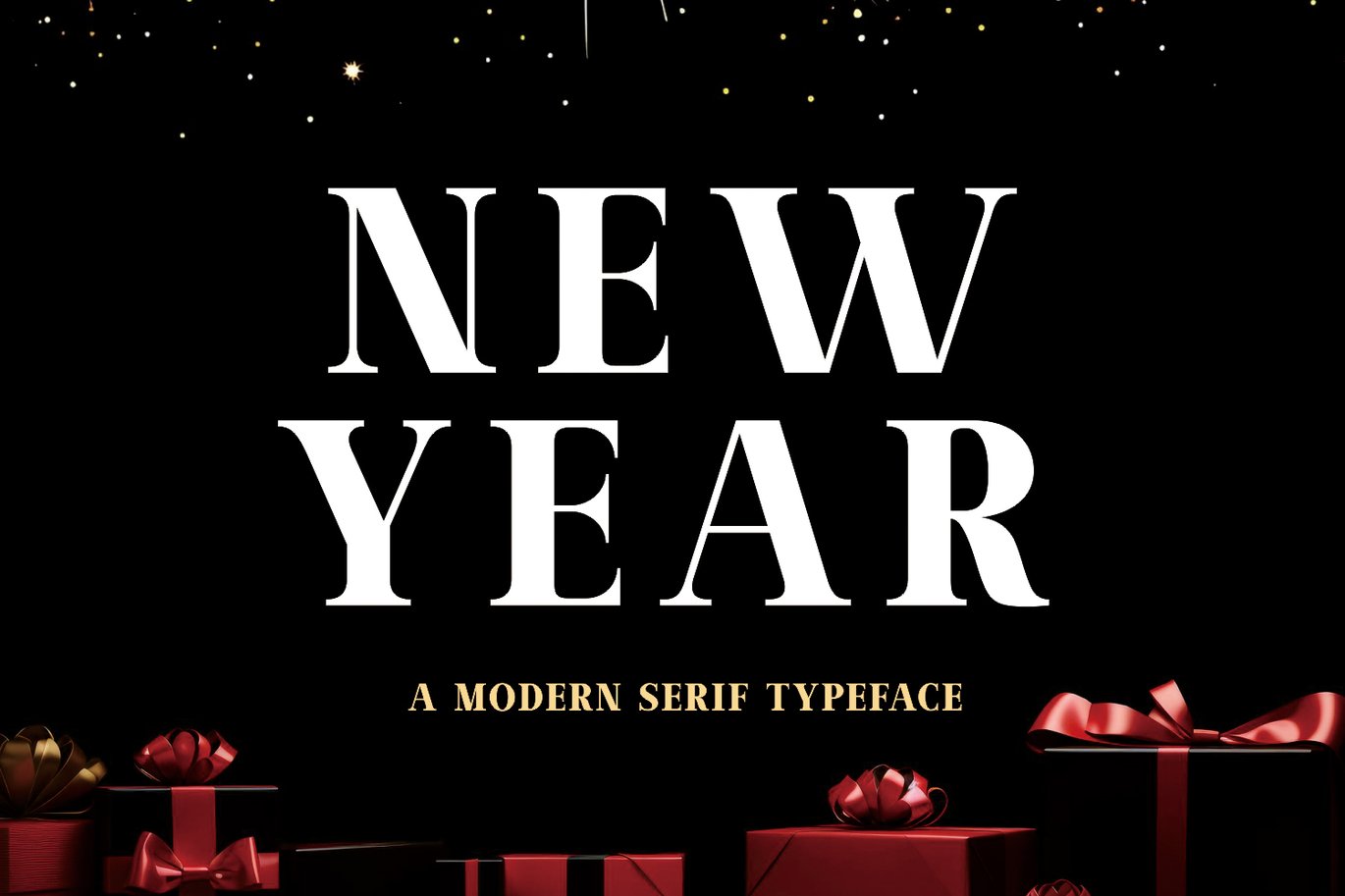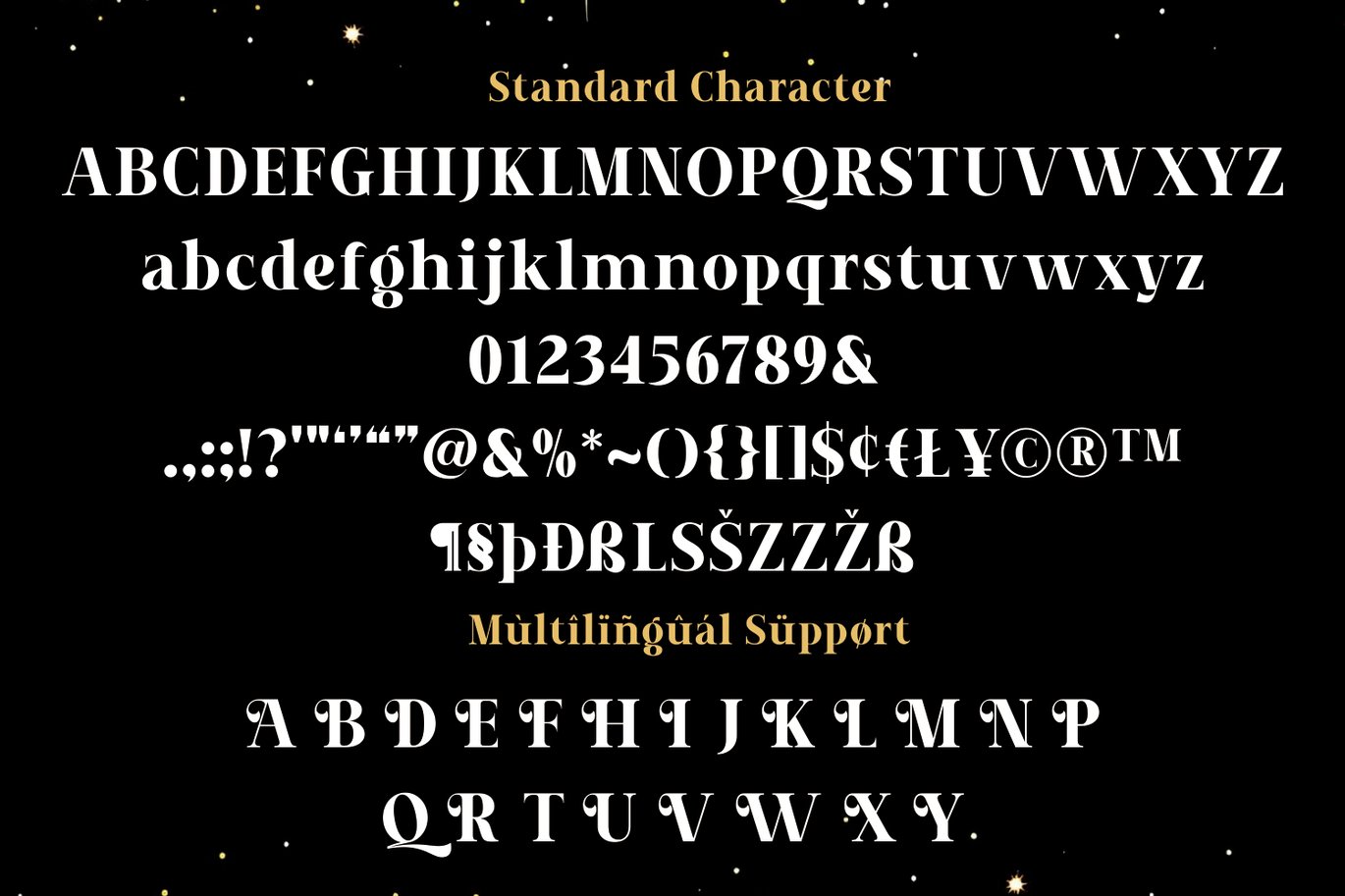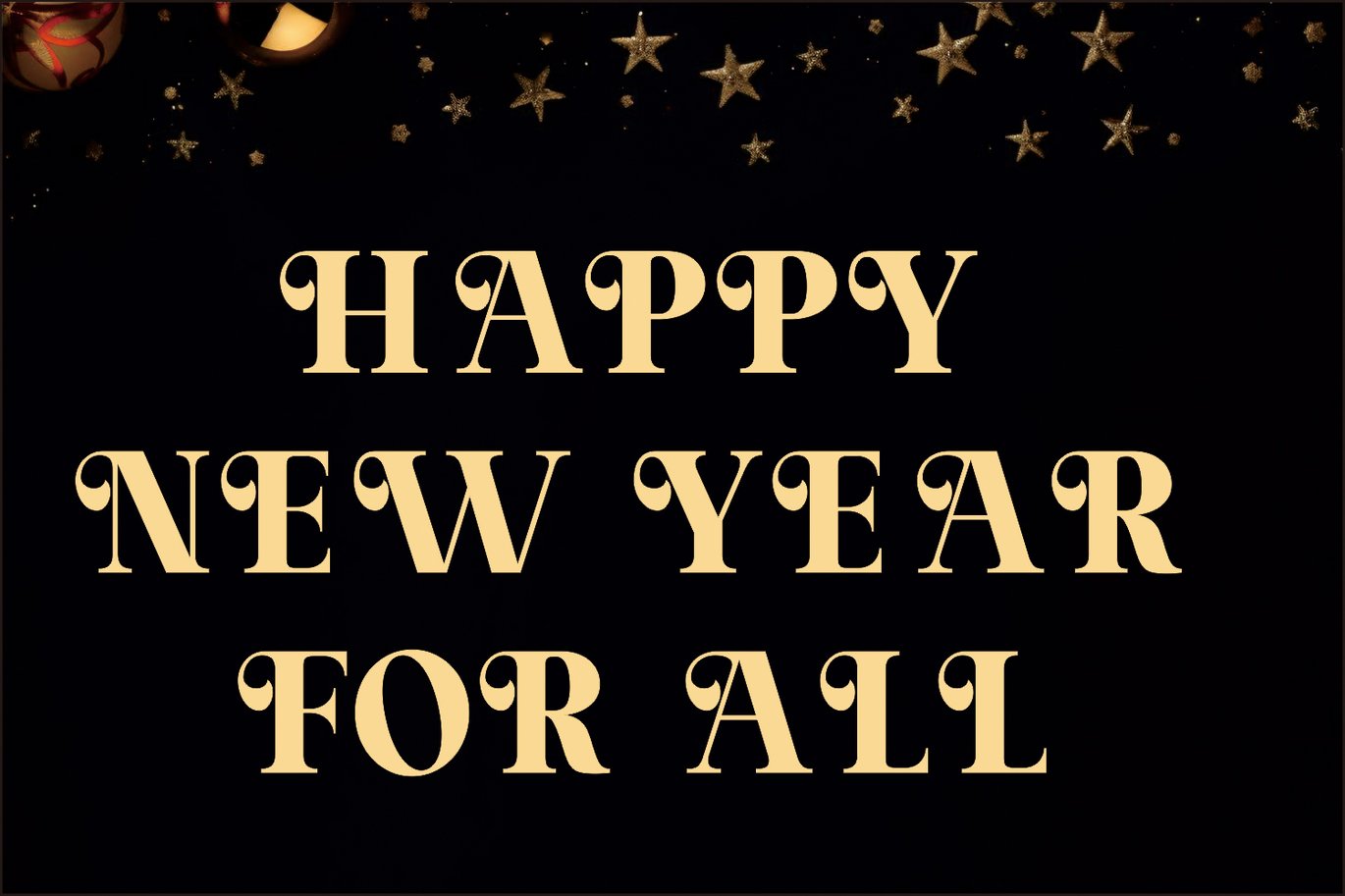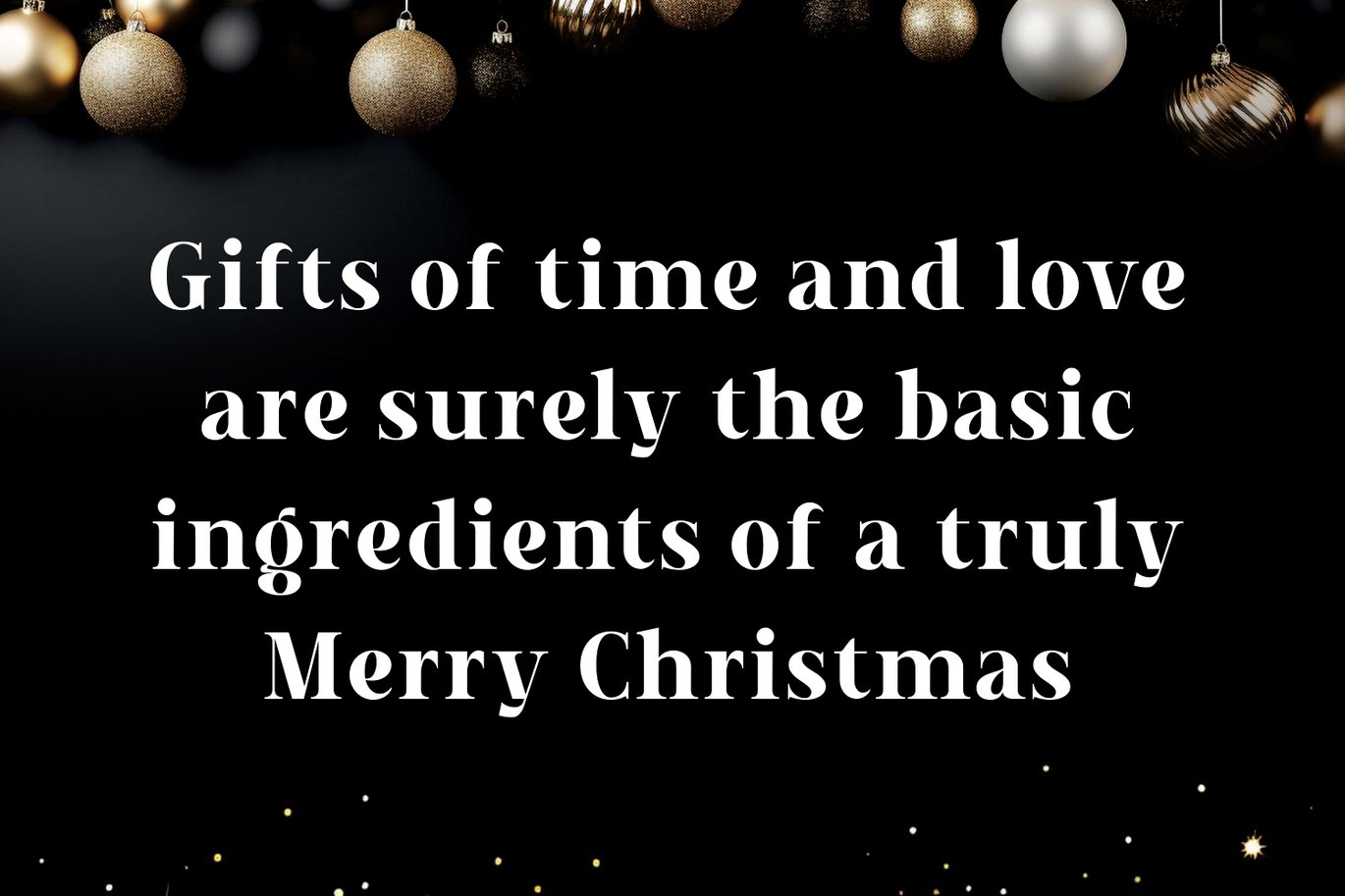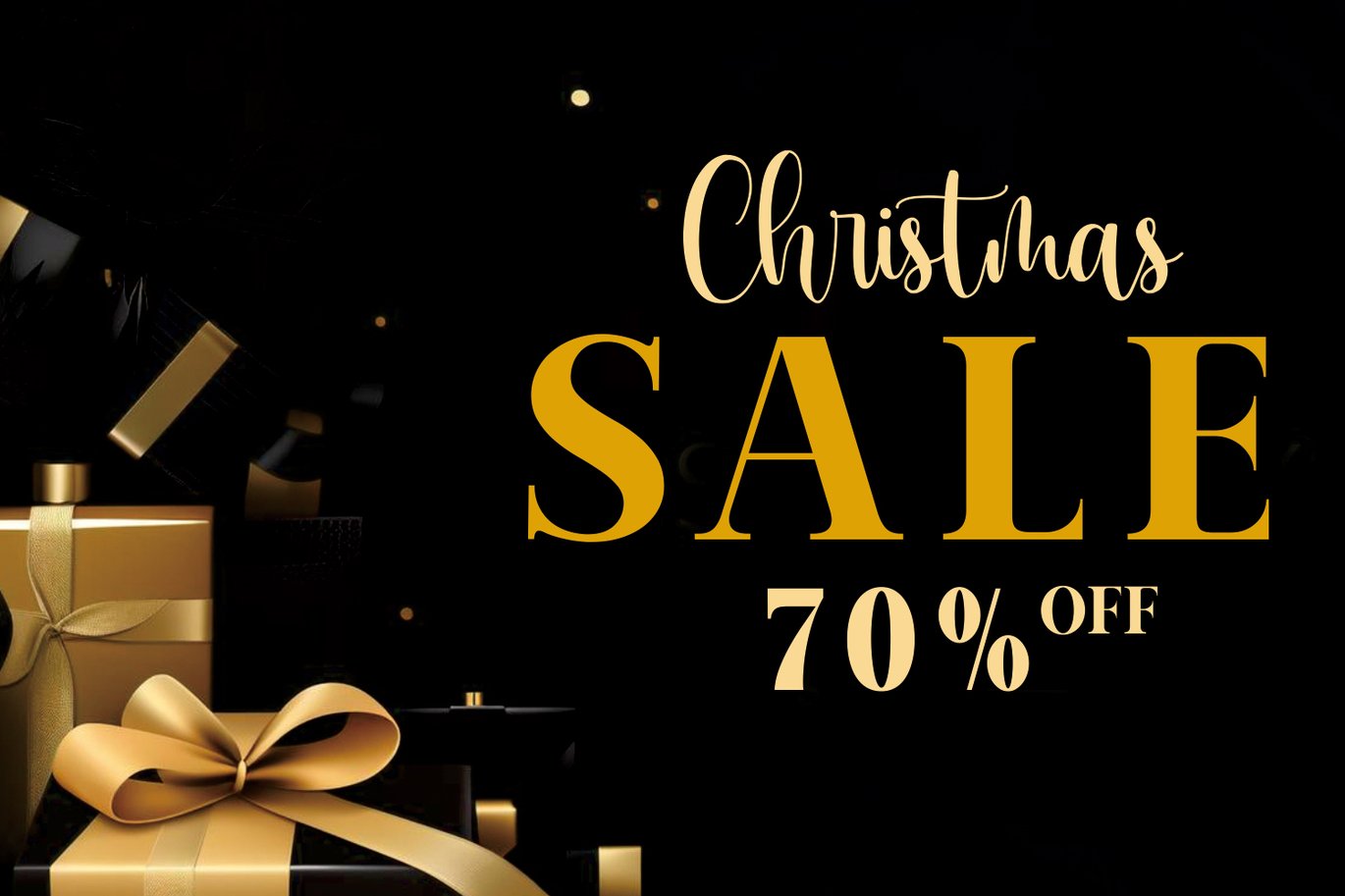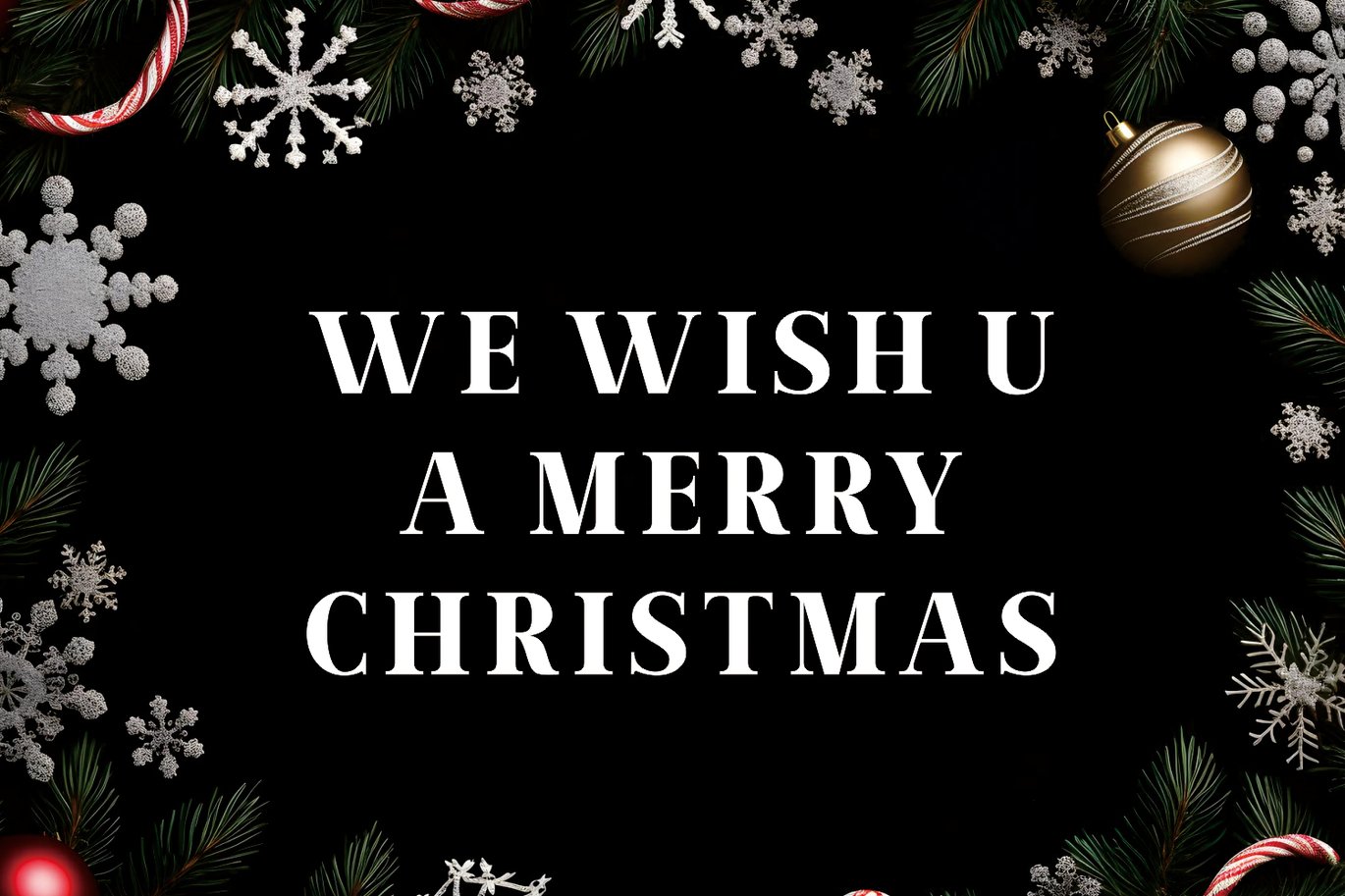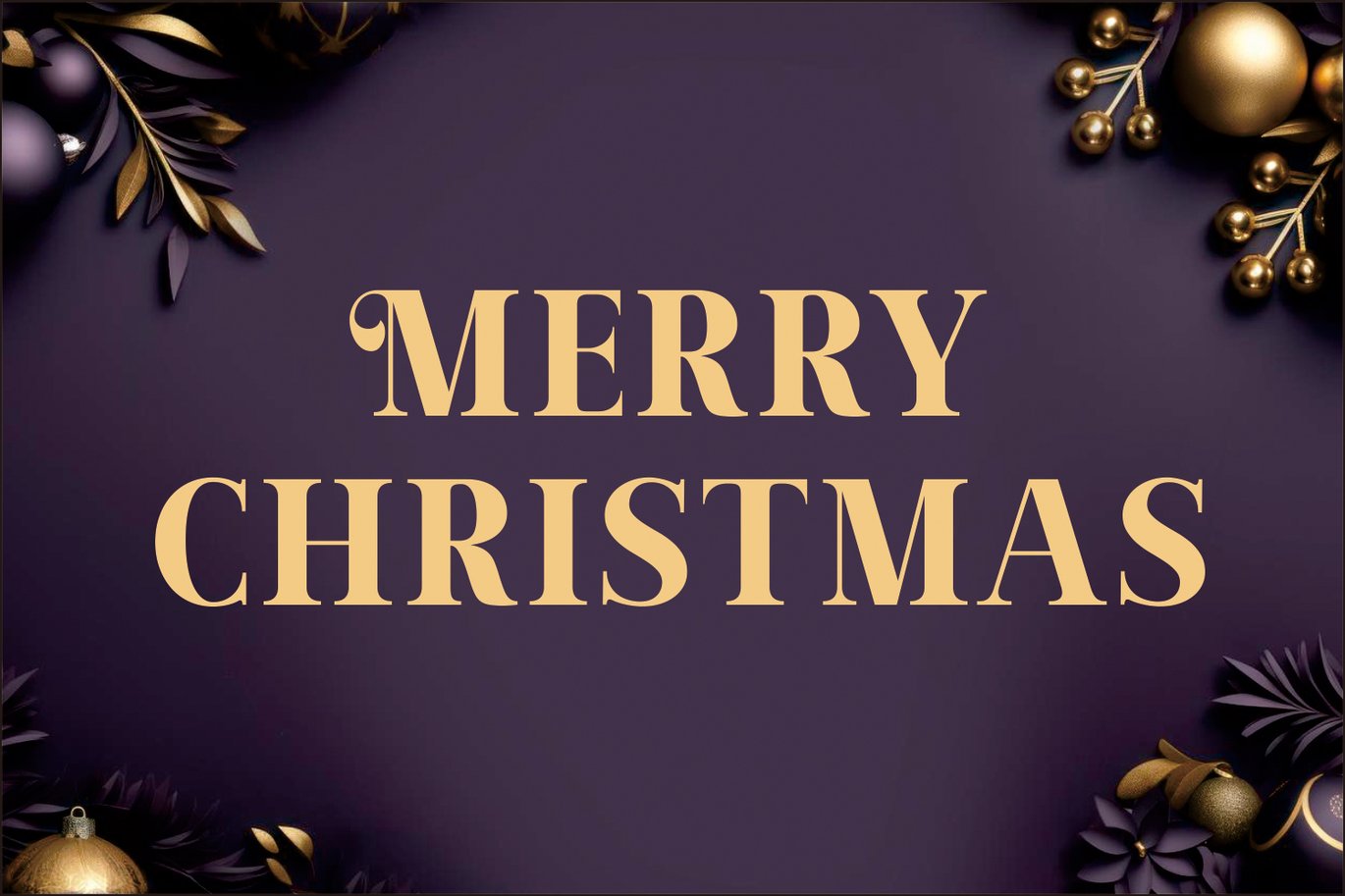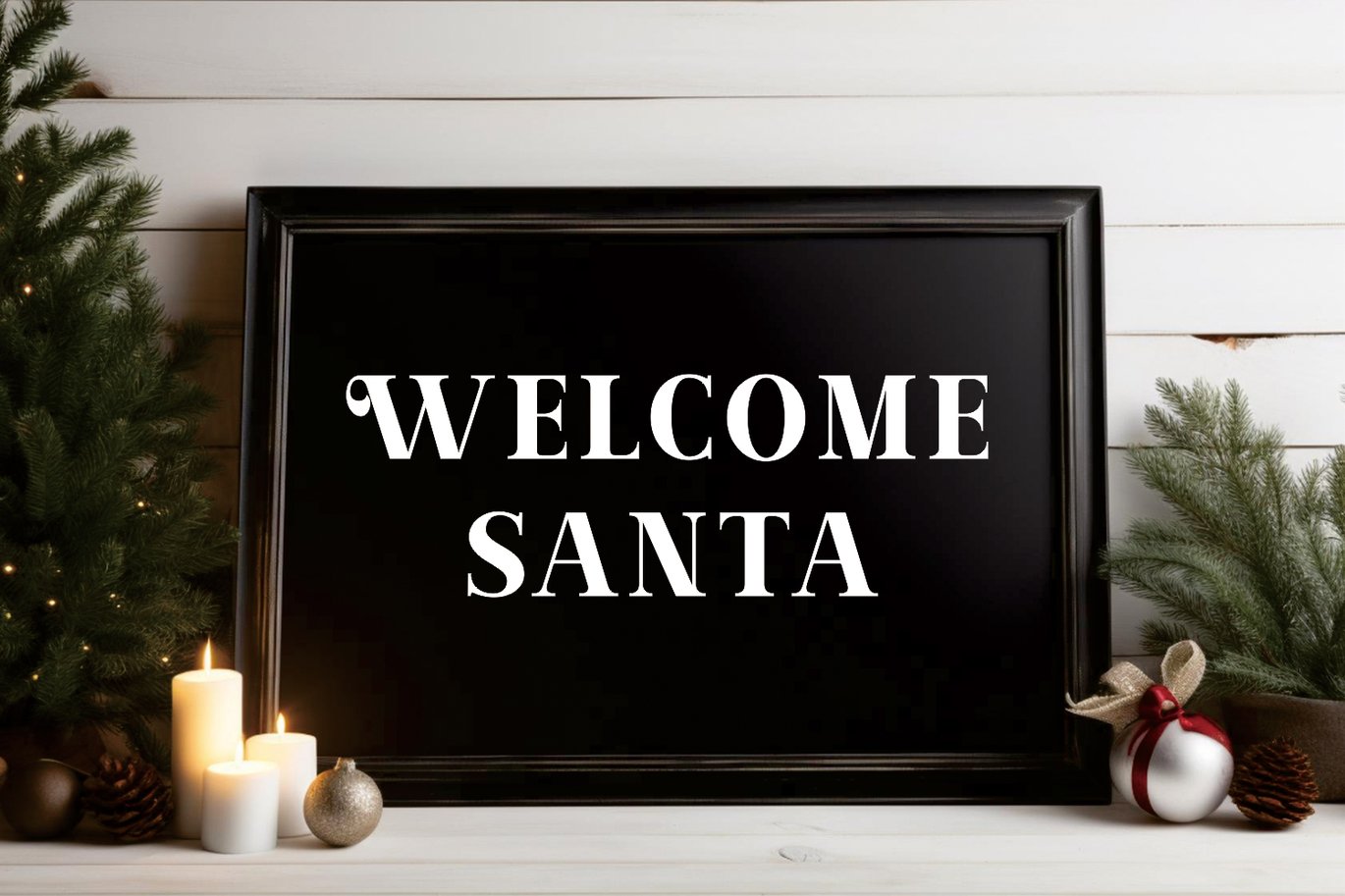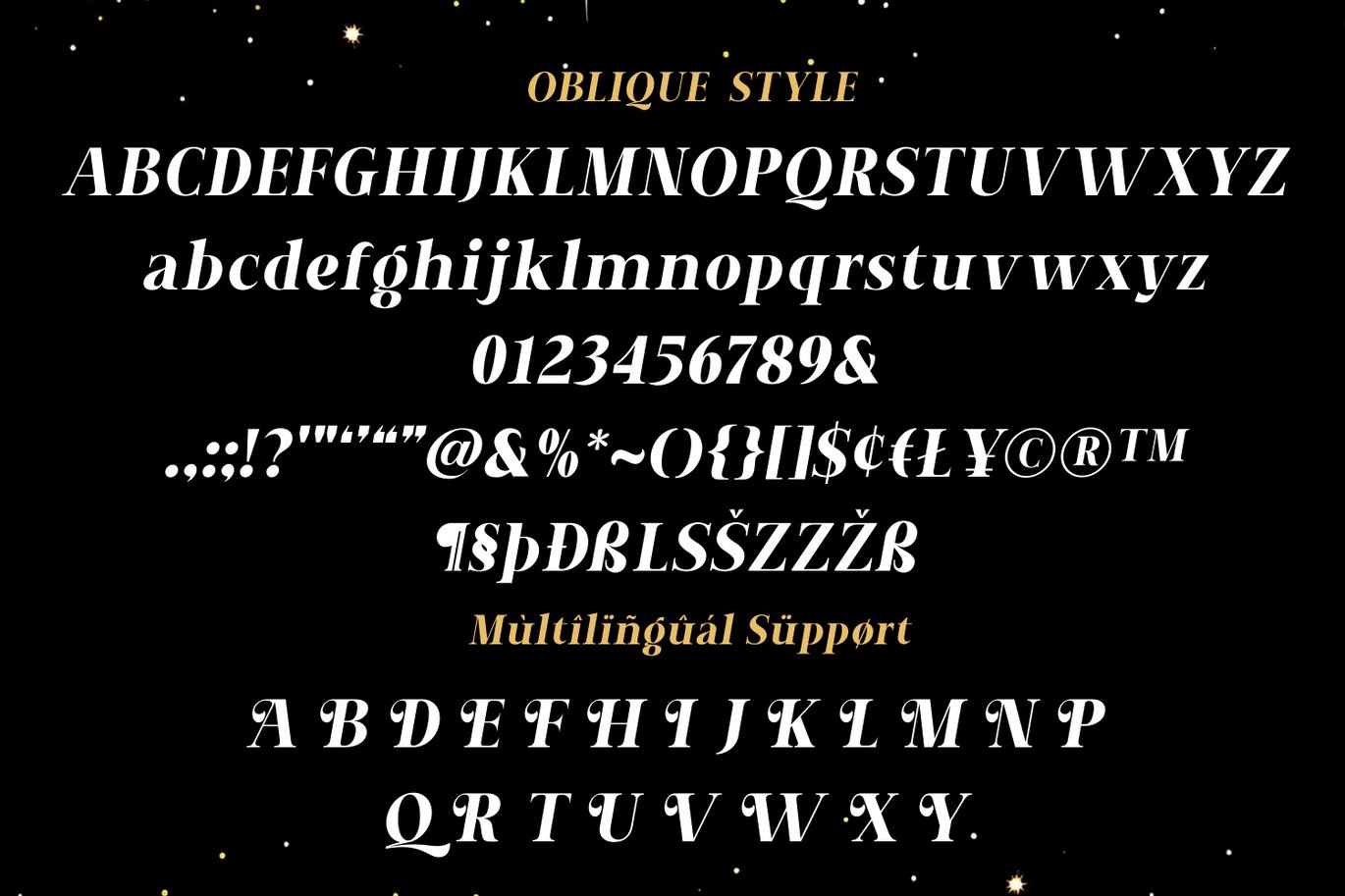
New Year – Christmas Font
Introducing the “New Year Font,” a captivating serif typeface tailored for the holiday season, winter discounts, Thanksgiving, and New Year-themed projects. This versatile font, featuring both regular and oblique styles, serves as the perfect complement for your Christmas cards, holiday decorations, craft lettering, and embroidery endeavors.
With its elegant serifs and timeless appeal, the “New Year Font” exudes the festive spirit, adding a touch of sophistication to your designs. Whether you’re creating seasonal discounts, heartfelt holiday greetings, or adorning decorations, this font’s two distinct styles offer flexibility and creativity.